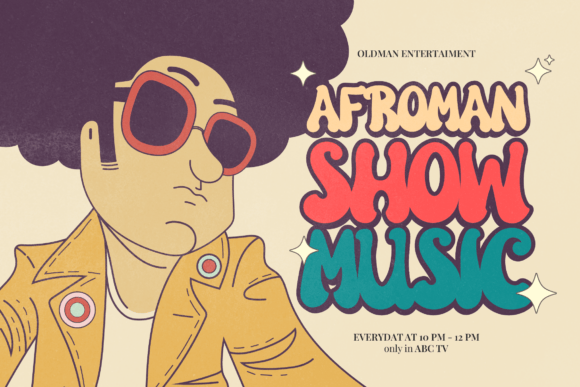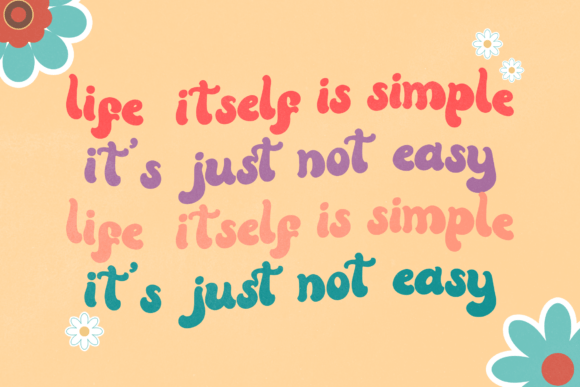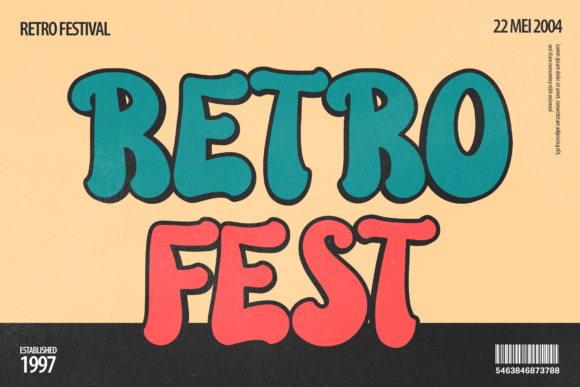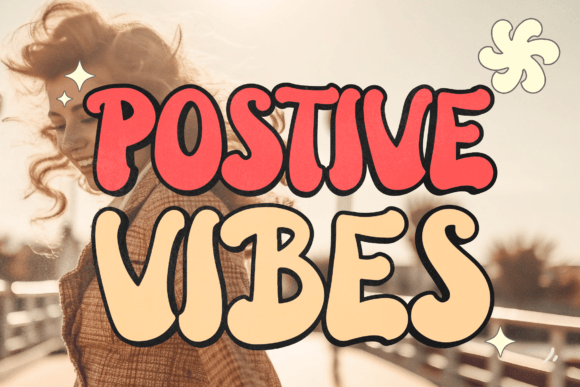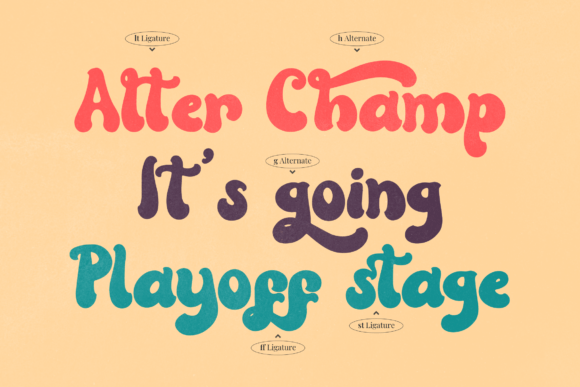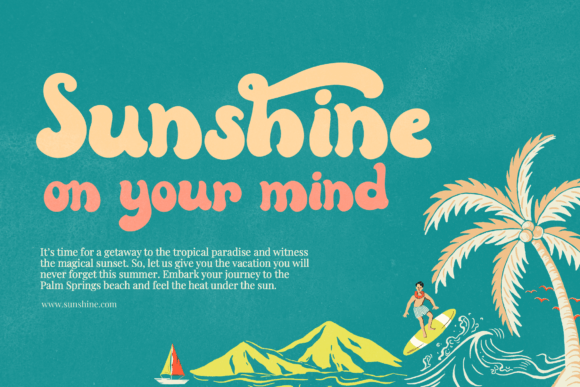
Gragstop Font: Elevate Your Designs with a Bold, Retro Flair
In the world of typography, fonts play a crucial role in conveying messages, evoking emotions, and setting the tone for a brand or design. For designers and crafters looking to add a touch of nostalgia and classic charm to their work, the Gragstop font is an excellent choice. This bold and eye-catching retro display font is designed to turn heads, making it perfect for posters, headlines, and any project that requires a strong, vintage aesthetic.
The Characteristics of Gragstop Font
Gragstop font is characterized by its thick, vintage-style letters that exude a sense of nostalgia and timelessness. Its bold design ensures that it stands out in any design, making it ideal for headlines, titles, and short phrases. The font’s retro vibe is reminiscent of classic posters and advertisements from the early 20th century, adding a unique and distinctive touch to modern designs.
Key Features of Gragstop Font
- Bold and Eye-Catching: The font’s thick letters are designed to grab attention, making it perfect for posters, billboards, and digital displays.
- Retro Aesthetic: Gragstop’s vintage-style letters evoke a sense of nostalgia, adding a classic touch to modern designs.
- High Versatility: The font is suitable for a wide range of design projects, from print materials like posters and flyers to digital applications such as social media graphics and website headers.
- Easy to Read: Despite its bold design, Gragstop font is clear and easy to read, ensuring that your message gets across effectively.
Uses of Gragstop Font
The versatility of Gragstop font makes it a valuable addition to any designer’s toolkit. Here are some of the many ways you can use this font:
- Posters and Flyers: Create eye-catching posters and flyers for events, promotions, or announcements that demand attention.
- Headlines and Titles: Use Gragstop font to craft bold and engaging headlines for articles, blog posts, or website content.
- Branding and Logo Design: Incorporate Gragstop font into your branding or logo design to give your brand a classic, retro look.
- Social Media Graphics: Design engaging social media graphics, including Facebook posts, Instagram stories, and Twitter headers, that stand out in crowded feeds.
- Packaging Design: Add a vintage touch to your product packaging with Gragstop font, making your products more appealing on store shelves.
Tips for Using Gragstop Font Effectively
To get the most out of Gragstop font, consider the following tips:
- Use it Sparingly: While Gragstop font is bold and eye-catching, it can be overwhelming if used excessively. Use it for headlines or key messages and opt for a simpler font for body text.
- Combine with Contrasting Fonts: Pair Gragstop font with a clean, sans-serif font to create visual contrast and enhance readability.
- Play with Colors: Experiment with different colors to find the perfect match for your design. Classic combinations include bold colors like red, blue, or yellow.
- Consider the Context: Ensure that the font aligns with the tone and message of your design. Gragstop font works well for playful, nostalgic, or promotional content.
Gragstop font is a powerful tool for designers and crafters looking to add a bold, retro flair to their work. Its thick, vintage-style letters are designed to stand out, making it perfect for a wide range of design projects. By understanding its characteristics, features, and uses, you can leverage Gragstop font to create visually stunning and effective designs that capture attention and leave a lasting impression.
Whether you’re working on a poster, headline, or branding project, Gragstop font is an excellent choice for adding a touch of nostalgia and classic charm. So, why not give it a try and see how this bold and eye-catching retro display font can elevate your designs?